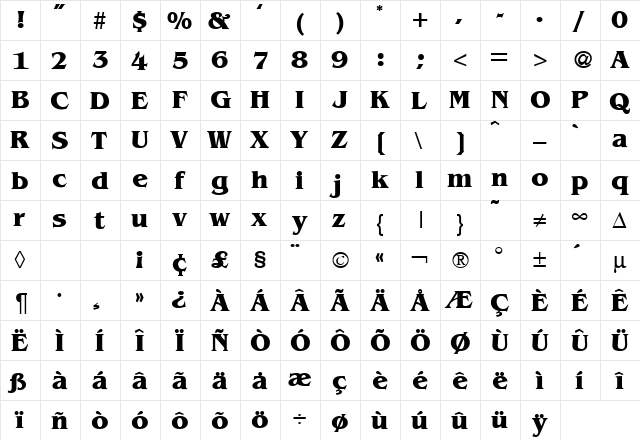
BenjaminSerif Bold
Design Context for BenjaminSerif Typeface
BenjaminSerif carries the refined structure of traditional serif typography, with bracketed terminals and considered proportions that communicate credibility and craft. The heavy weight commands attention and anchors typographic hierarchies.
Pro Tip: Use BenjaminSerif for editorial body copy and considered headline work. Pair with a neutral sans for UI elements or captions to create a classic hierarchy.